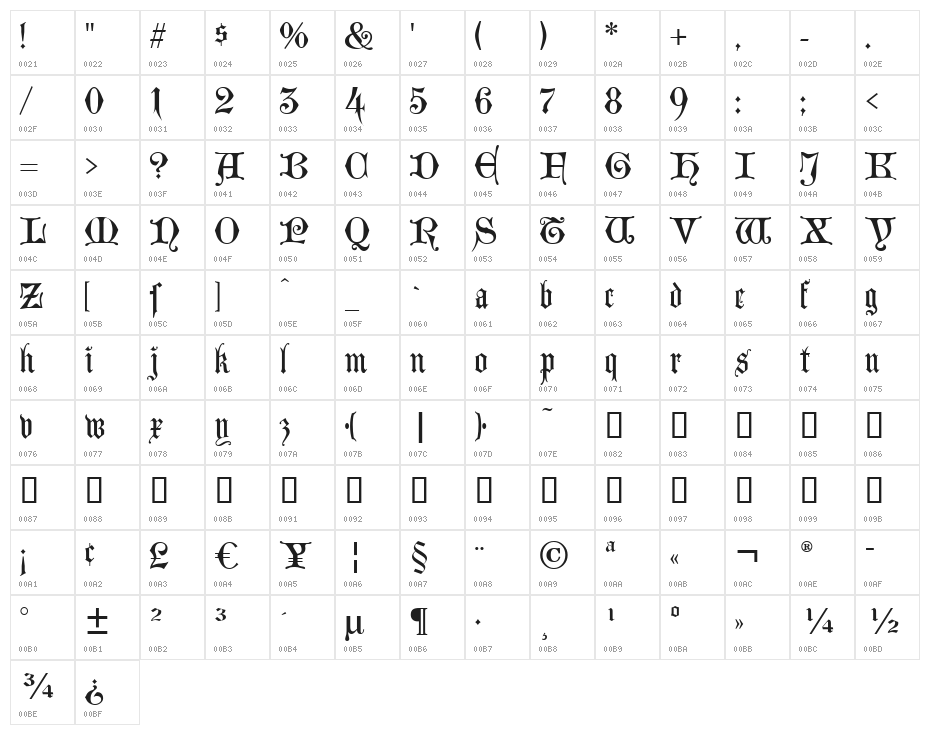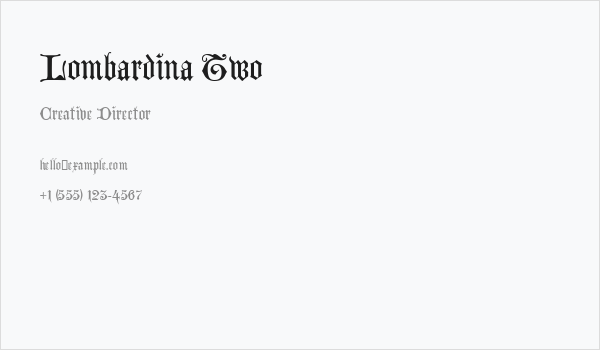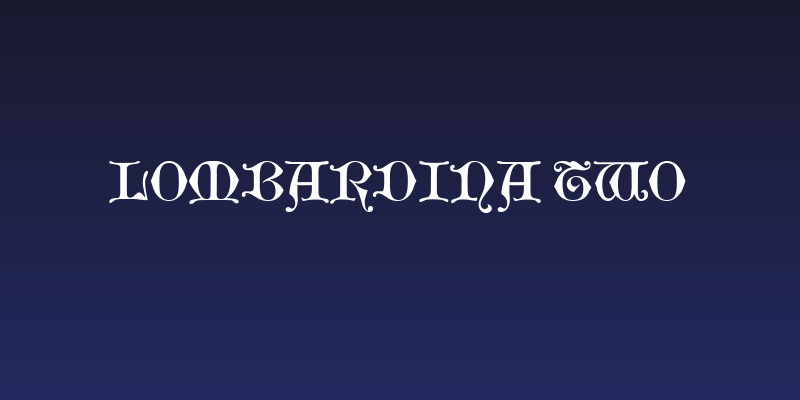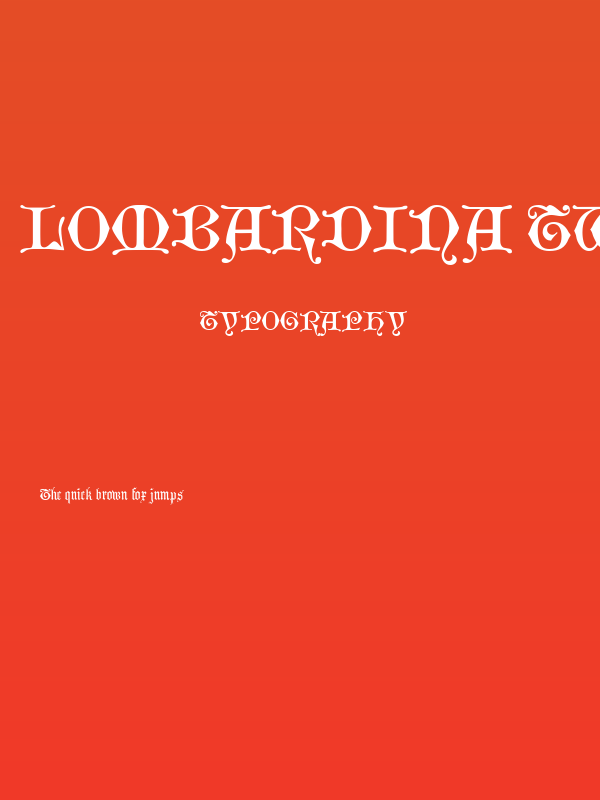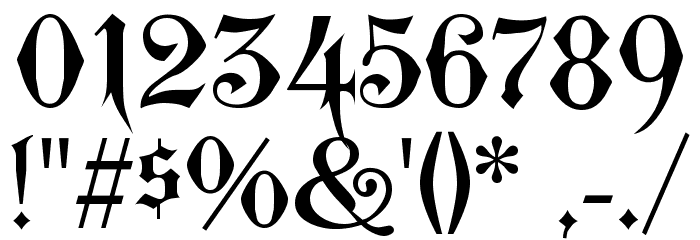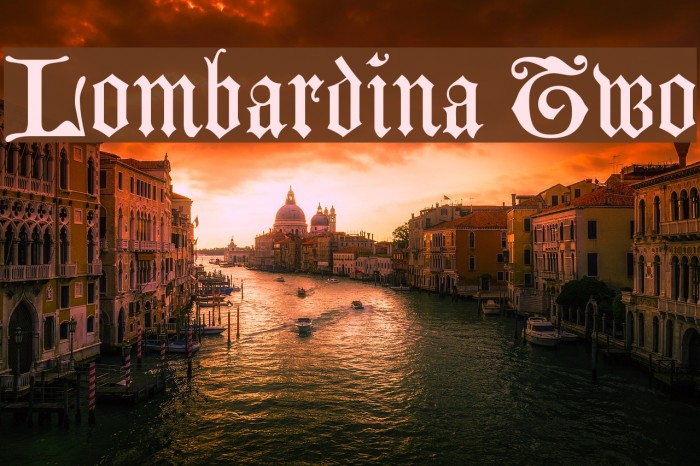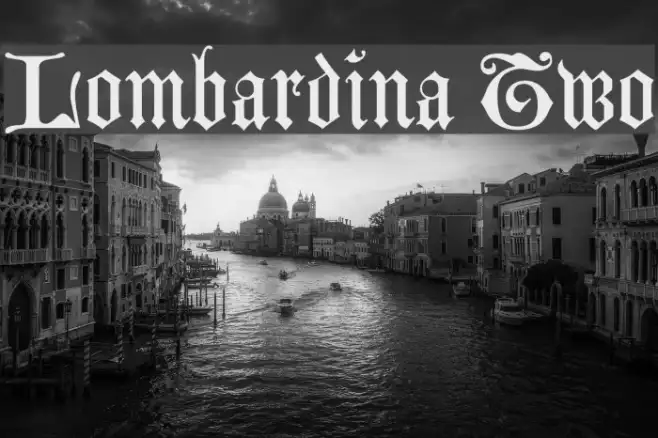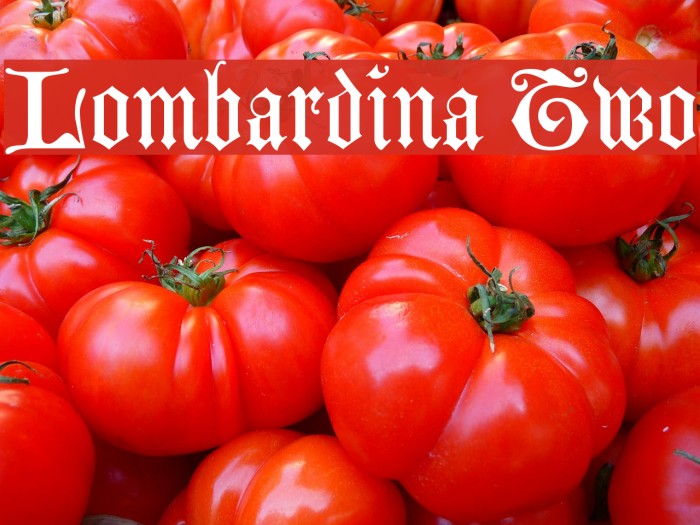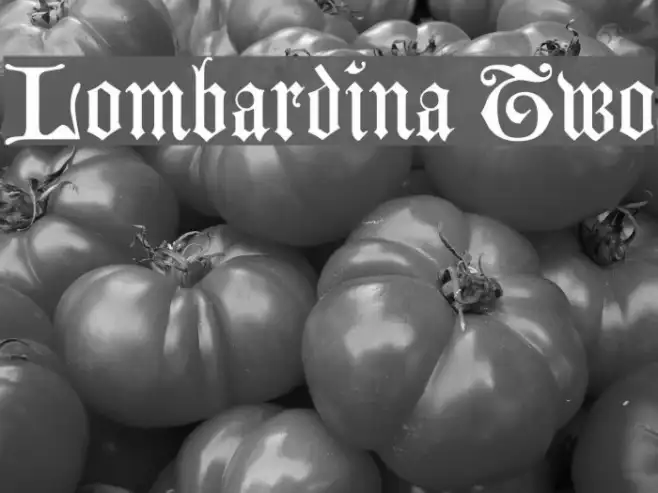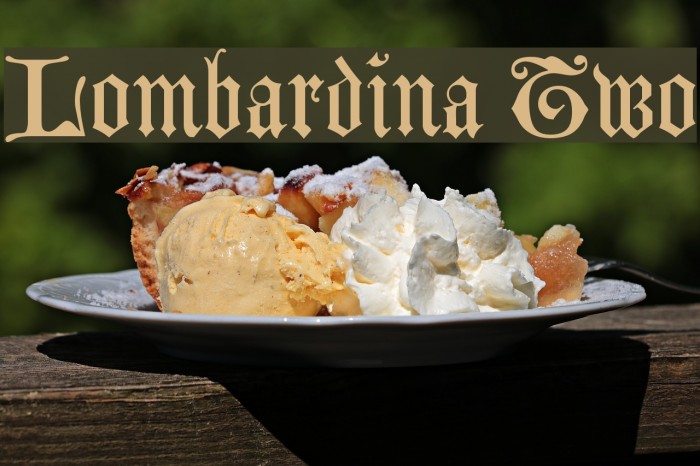
Lombardina Two Font
Lombardina Two Description
This font features a distinct and ornate style reminiscent of medieval script, characterized by its intricate and decorative elements. The uppercase letters exhibit a unique blend of sharp angles and flowing curves, creating a sense of elegance and sophistication. The lowercase letters maintain a consistent style, with elongated vertical strokes and decorative serifs that enhance the font's historical aesthetic. Numerals are bold and stylized, matching the overall theme with their angular forms and embellishments. Special characters are equally ornate, adding to the font's cohesive and artistic appearance. This font is ideal for projects that require a touch of historical or gothic flair.
| Use Case | Headlines, Logos, Decorative text |
| Proposed Projects | Ideal for historical-themed designs, book covers, invitations, and branding that seeks a gothic or medieval touch. |